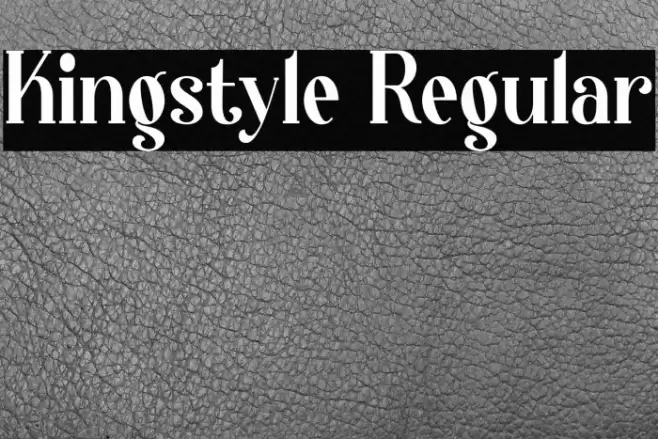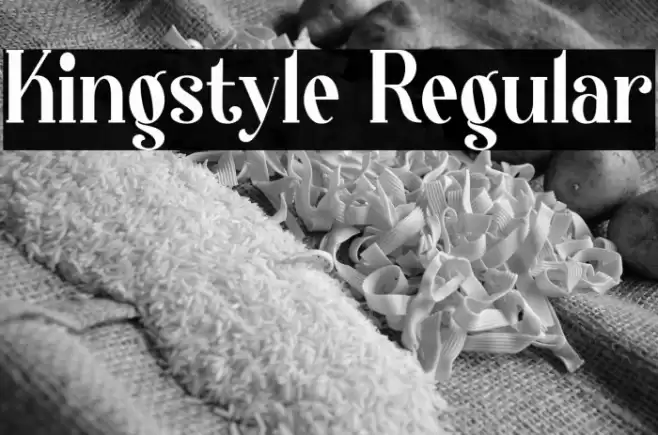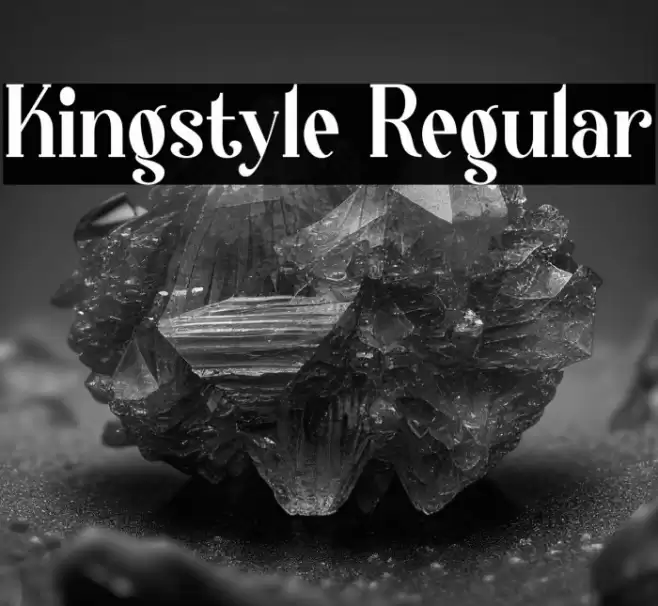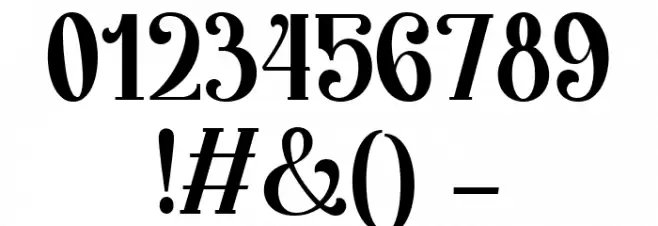
Kingstyle Regular Font
Kingstyle Regular Description
This font features a bold and elegant design with a distinct vintage flair. The uppercase letters are tall and commanding, with a slight curvature that adds a touch of sophistication. The lowercase letters maintain a consistent style, offering a harmonious blend of curves and straight lines. Numbers are equally bold, ensuring readability and impact. Special characters are crafted with the same attention to detail, making them suitable for various design needs. The overall appearance is both classic and decorative, making it ideal for projects that require a touch of elegance and tradition.
A bold, vintage-style font with elegant curves and strong presence from Regular fonts.
- Proposed Projects: Ideal for branding, headlines, posters, and invitations where a classic and sophisticated look is desired.
- Overall Style: Vintage